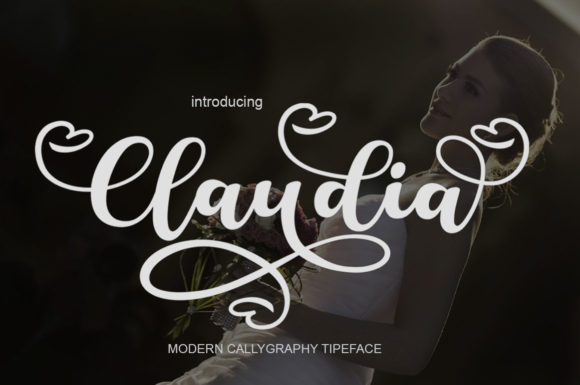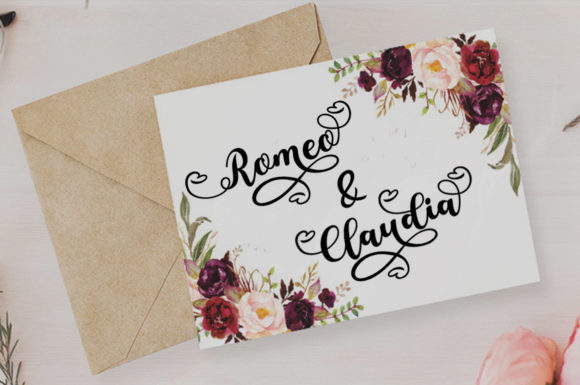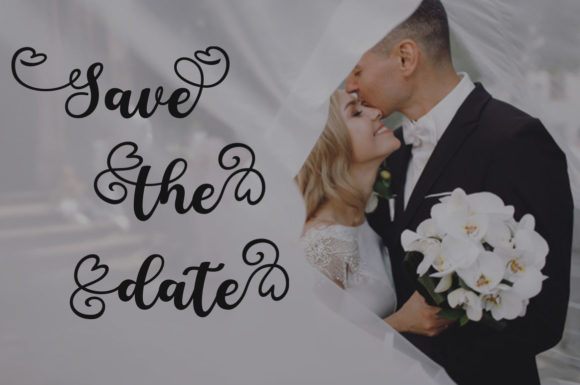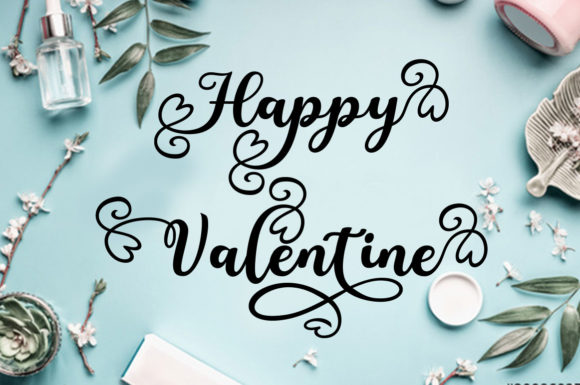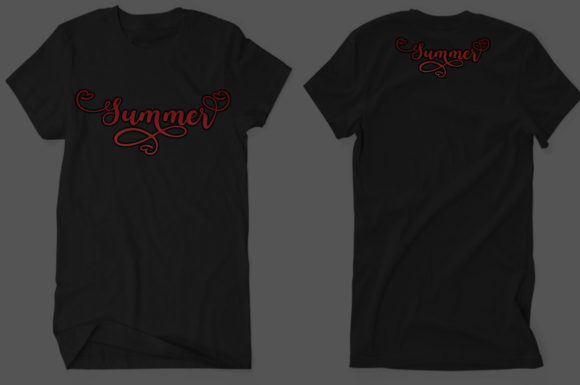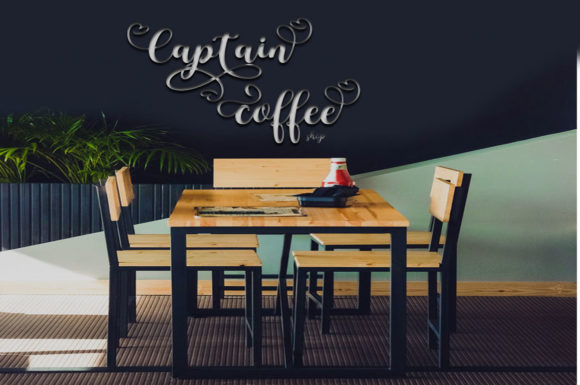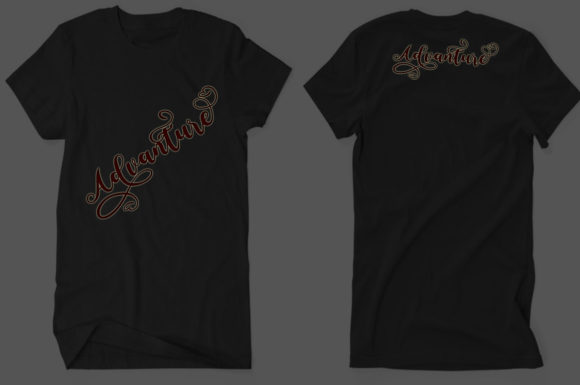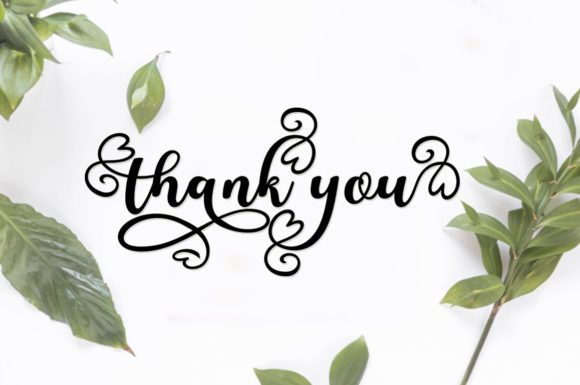
Claudia Font
About Claudia Font
Claudia is a romantic and cute handwritten font. It features amazing swashes and ligatures that will take your designs to the next level! Get inspired by its authentic feel and use it to create gorgeous wedding invitations, beautiful stationary art, eye-catching social media posts, and cute greeting cards.